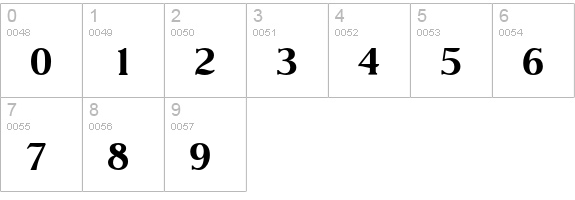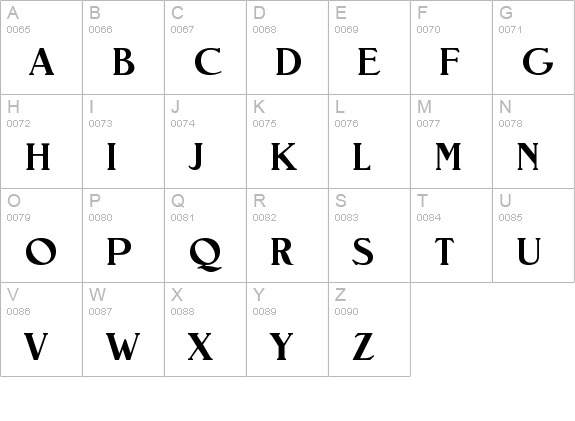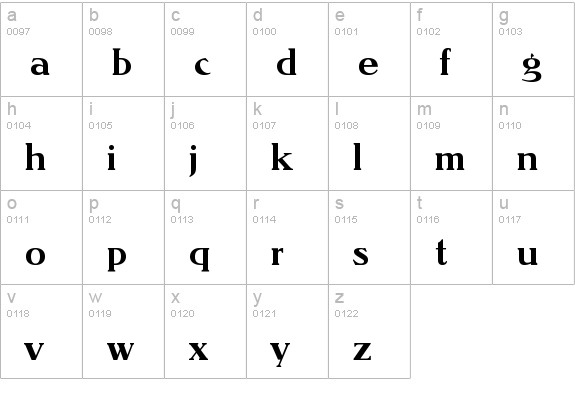
NevadaEF-DemiBold is a sub-bold, structured variant in the NevadaEF typeface family \xE2\x80\x94 well suited to sub-headlines and emphasised passages.
NevadaEF-DemiBold font is a modern and stylish typeface that exudes confidence and sophistication. Its bold and striking design makes it perfect for headlines, titles, and branding materials. With its clean lines and sleek appearance, NevadaEF-DemiBold is sure to make a statement in any design project. The best part? NevadaEF-DemiBold font is available for free download at FontsMarket.com. Whether you're working on a personal project or a professional design, this versatile font is a great addition to your font library. Don't miss out on the opportunity to enhance your designs with the elegance and impact of NevadaEF-DemiBold font. Download it now and elevate your typography game!